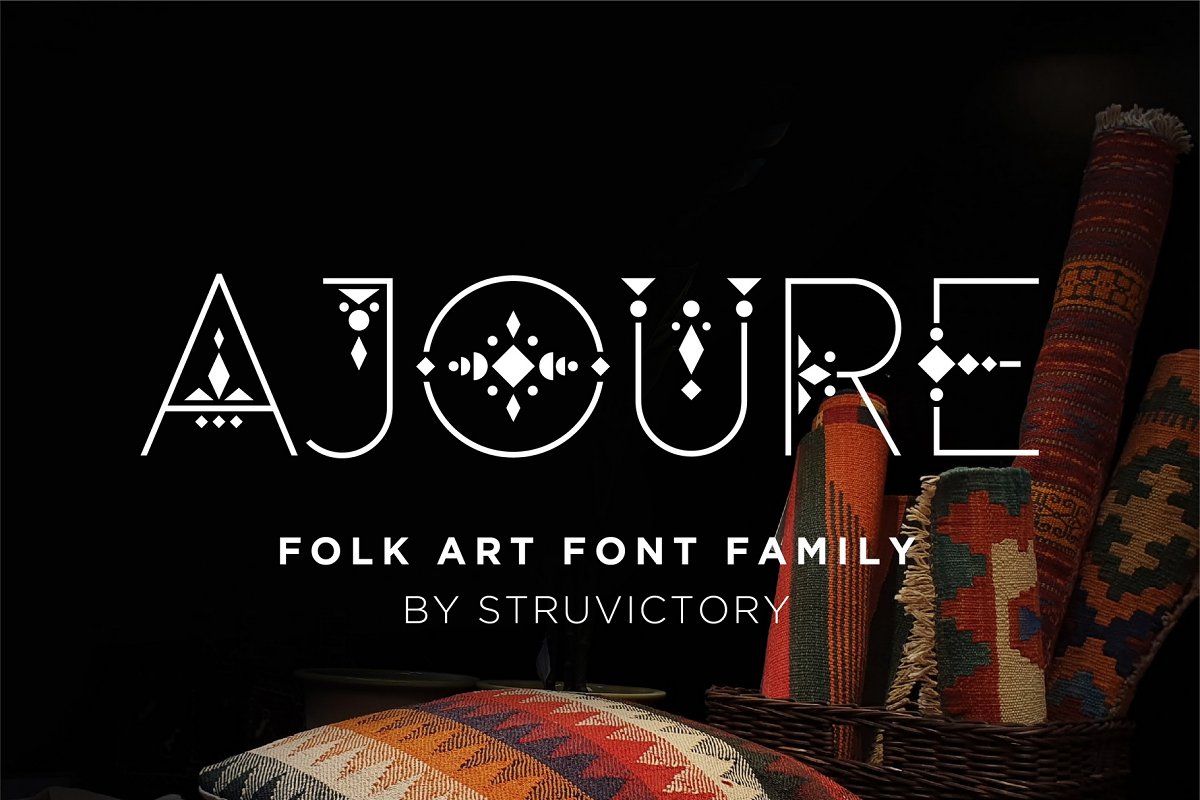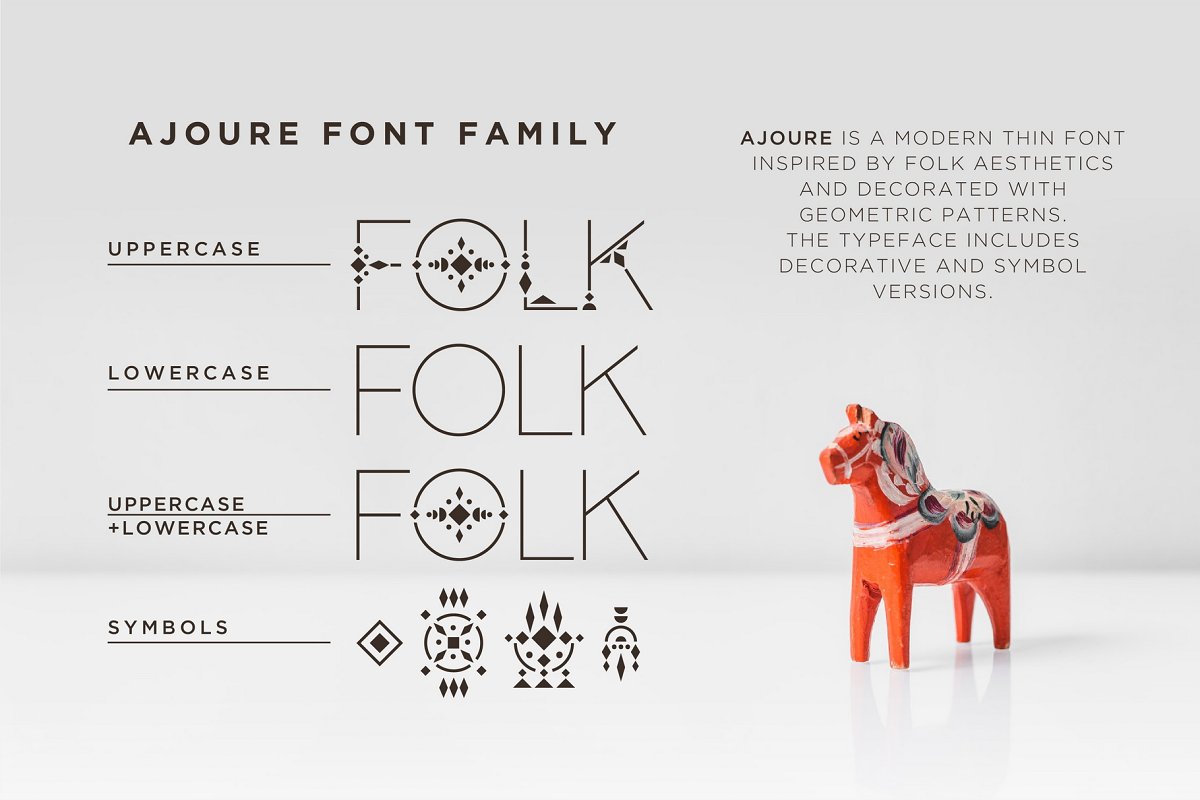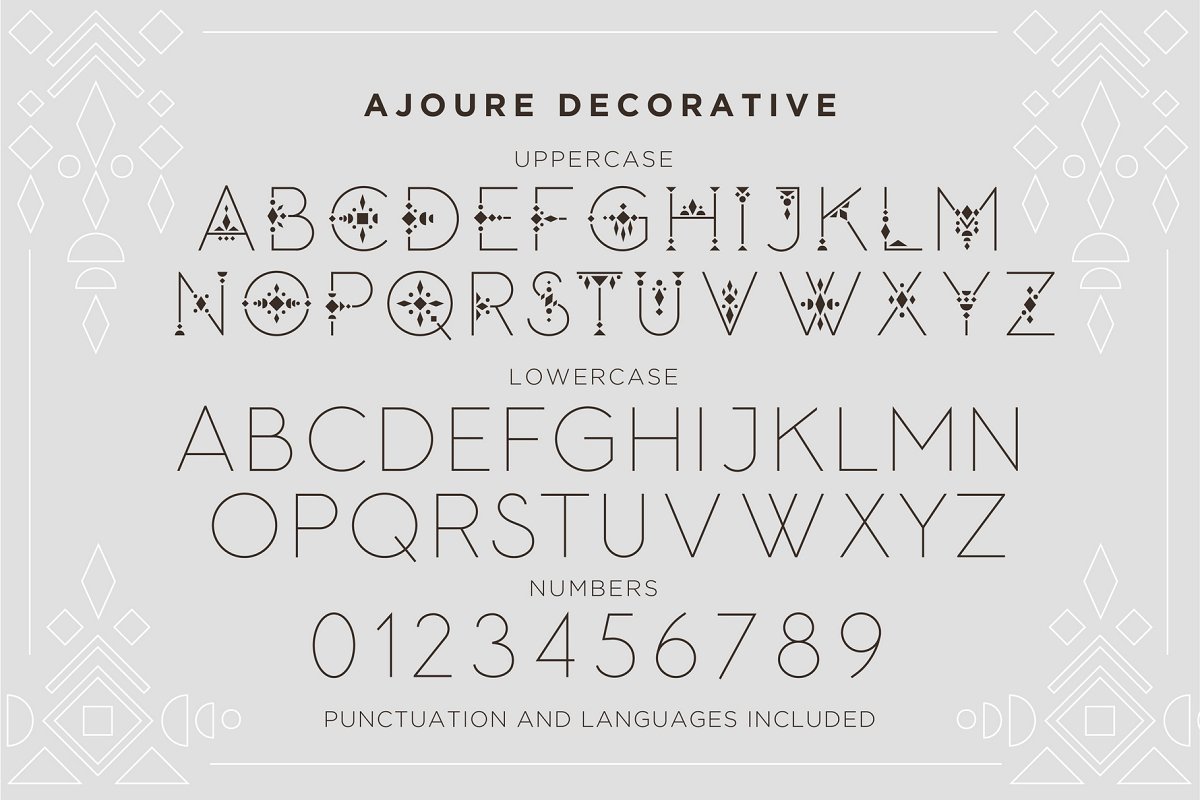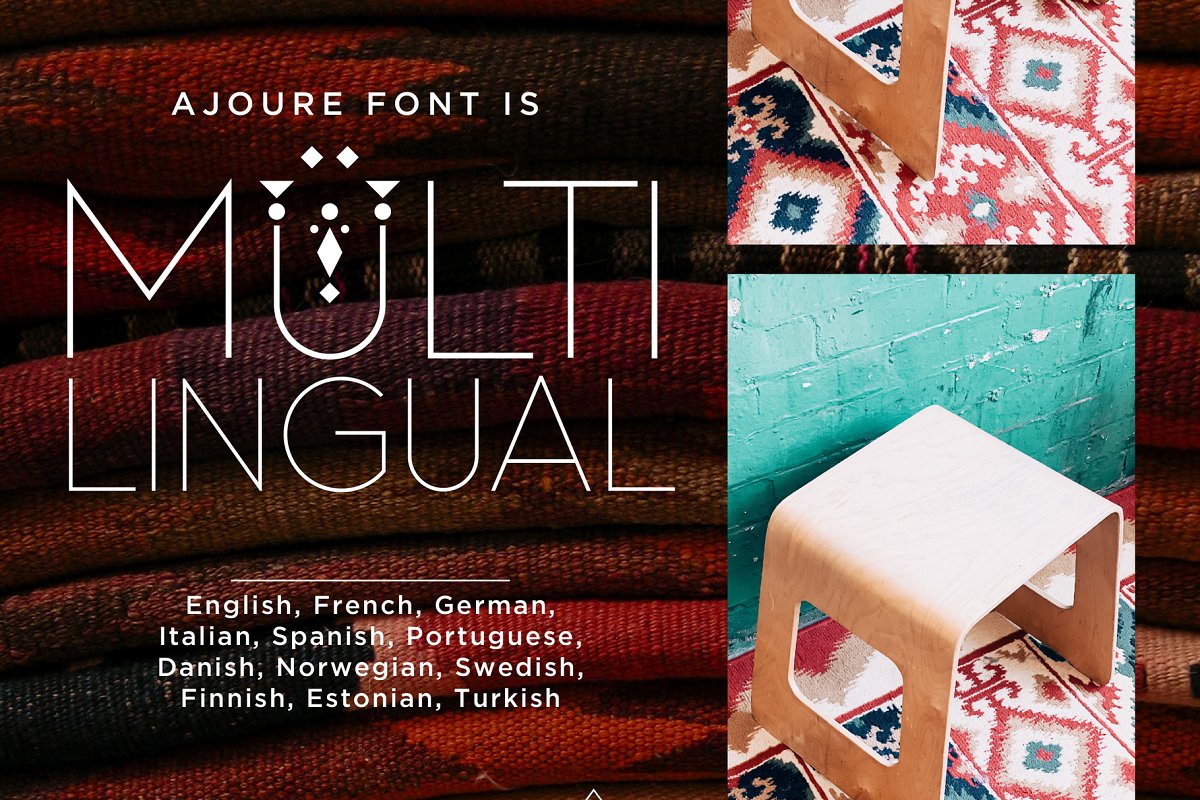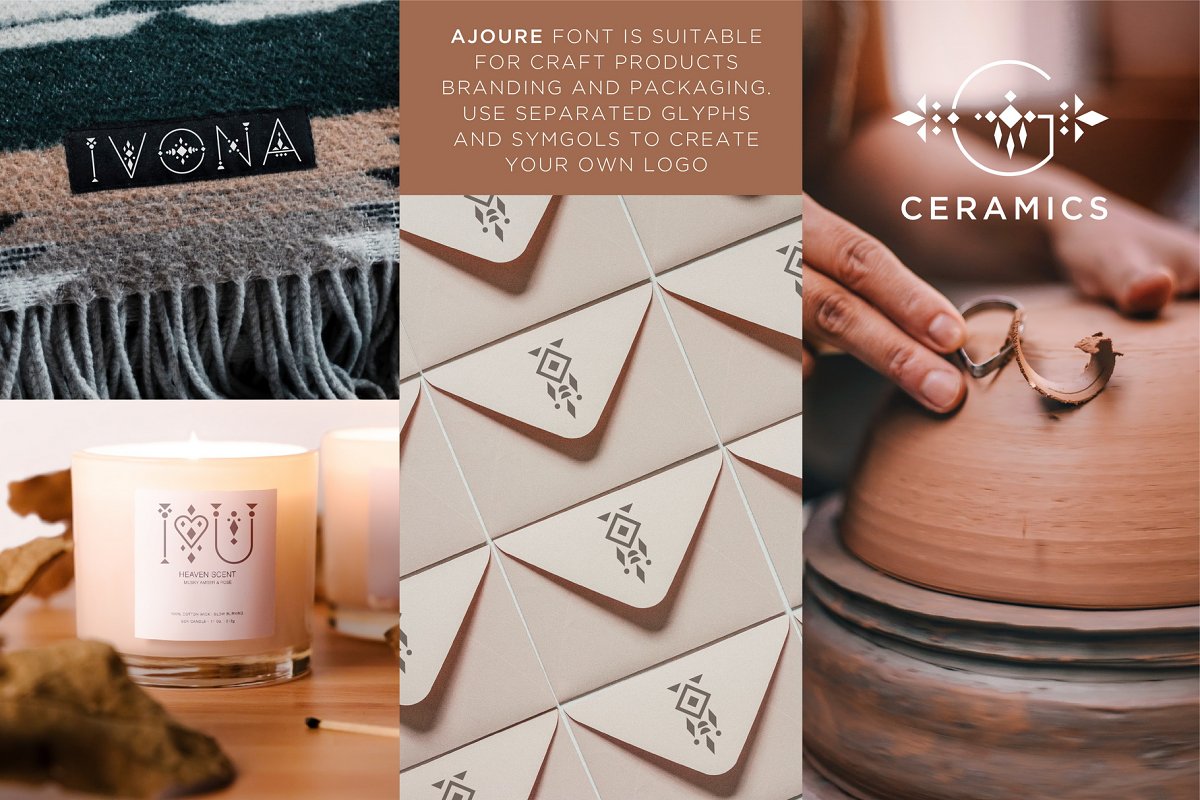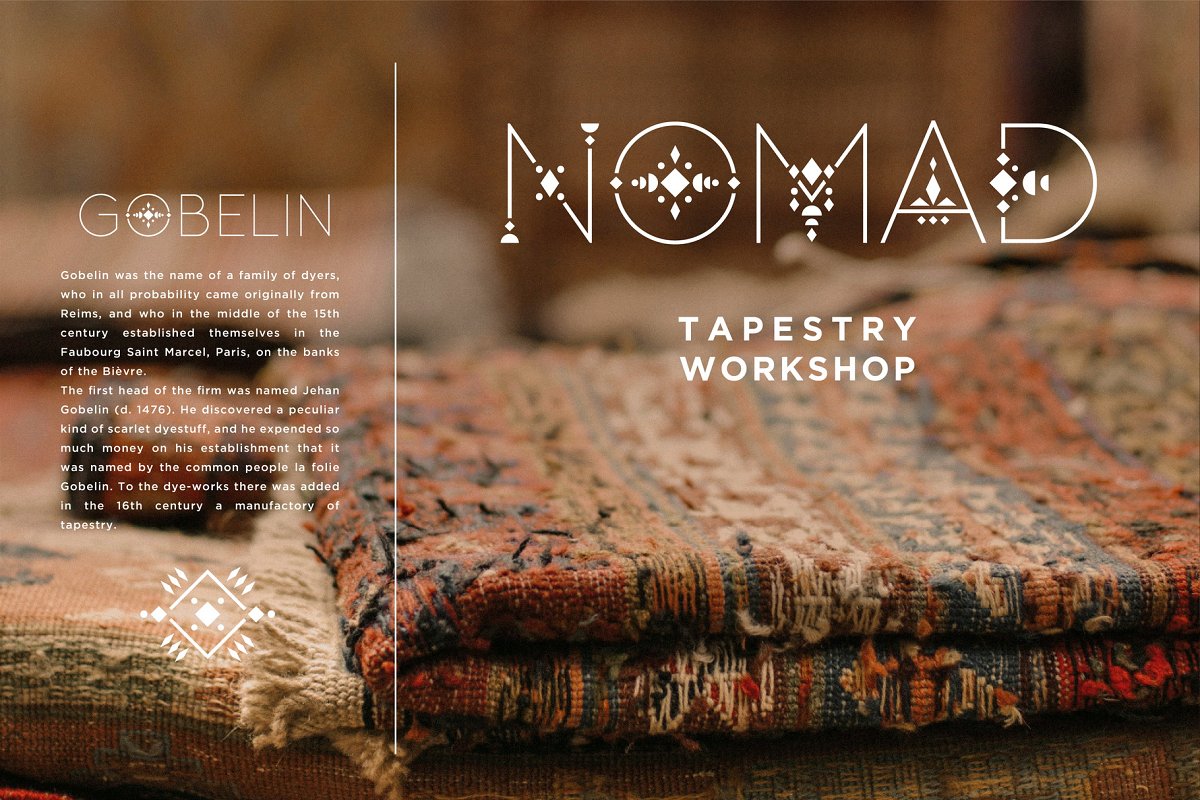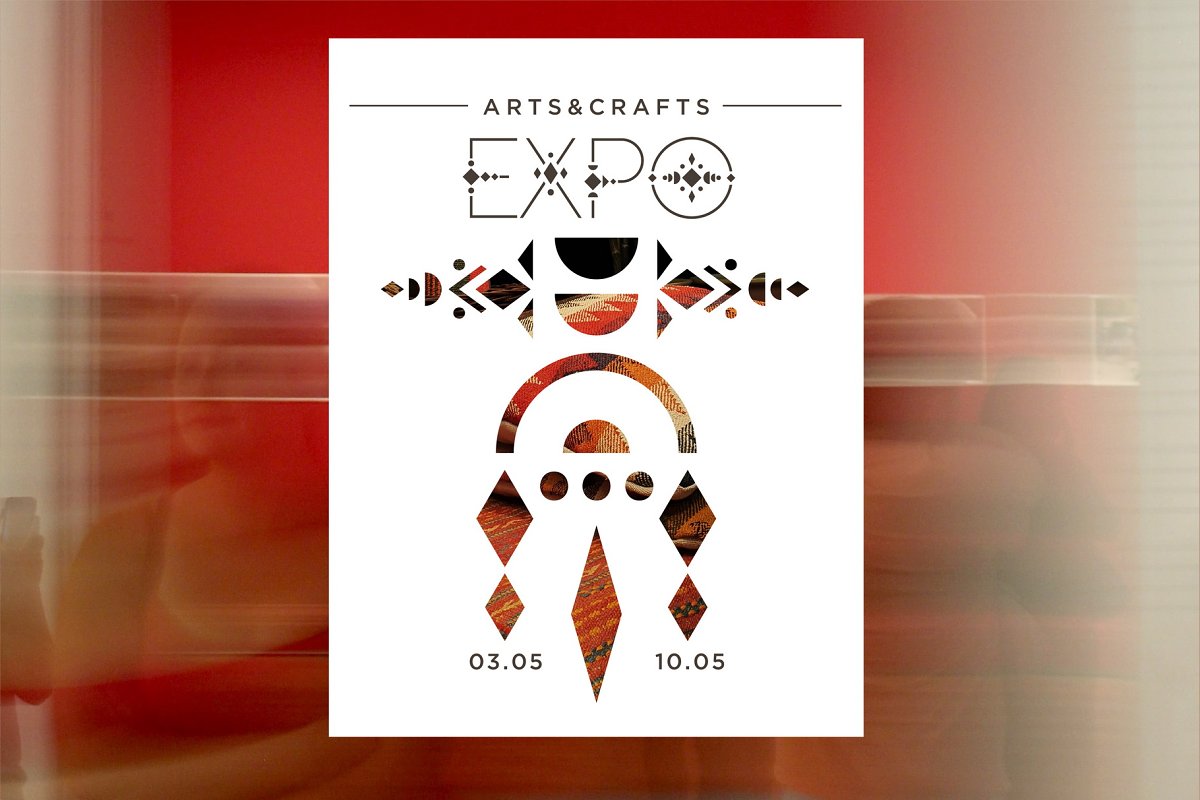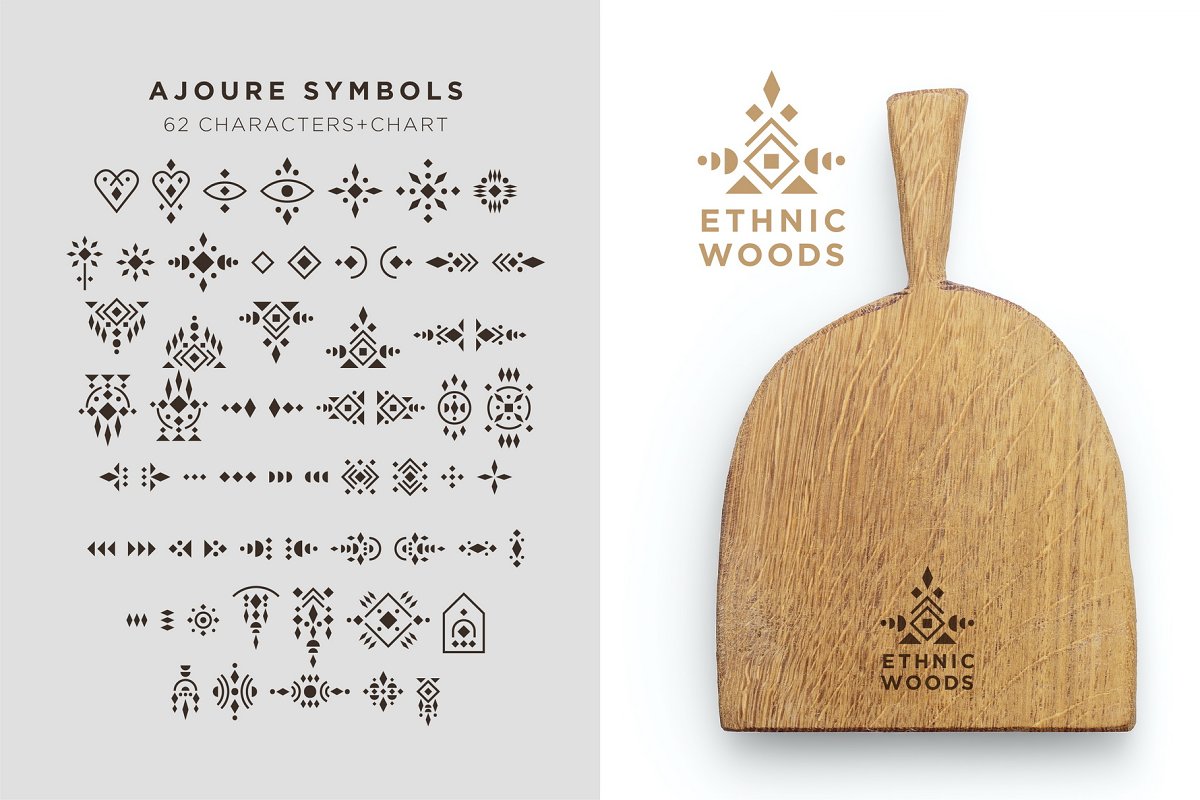
About the Ajoure Folk Art Logo Family Font
Ajoure is a modern thin font inspired by folk aesthetics and decorated with geometric patterns, The typeface includes Decorative and Symbol versions, Ajoure Decorative is represented by thin line lowercase and ornate uppercase, Ajoure font family is suitable for craft products branding and packaging (needlework, ceramics, jewelry, handmade soap ect
), events design, modern typographic posters, Use individual letters and symbols to create logos and monograms, WHAT YOU GET:Ajoure-Decorative, otfAjoure-Symbols, otfAjoure-Decorative, ttfAjoure-Symbols, ttfAjoure-Symbols-Chart, jpgThe font has extensive language support, it includes English, French, German, Italian, Spanish, Portuguese, Danish, Norwegian, Swedish, Finnish, Estonian, Turkish